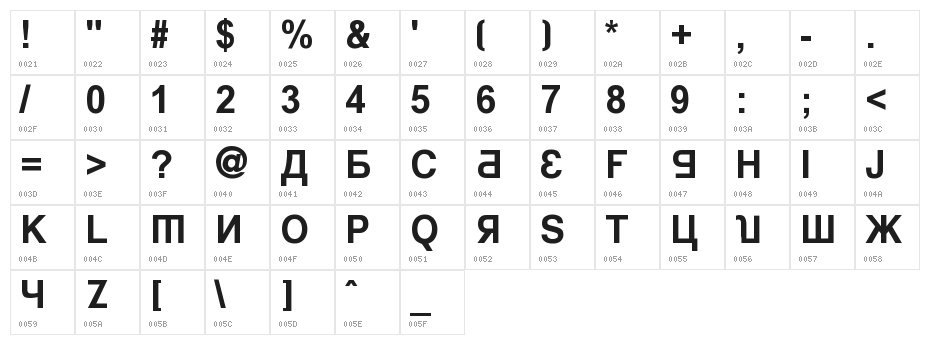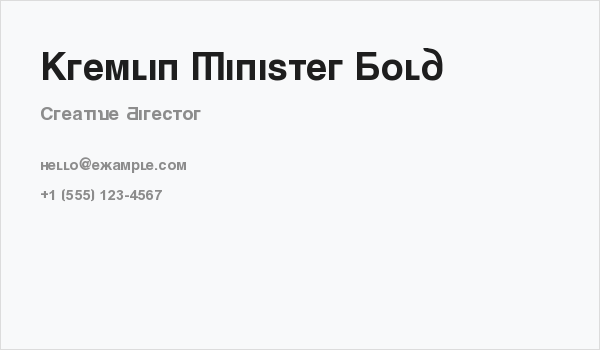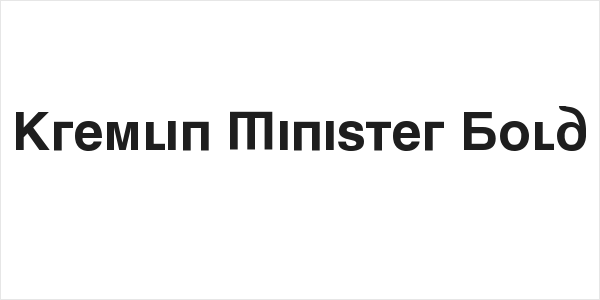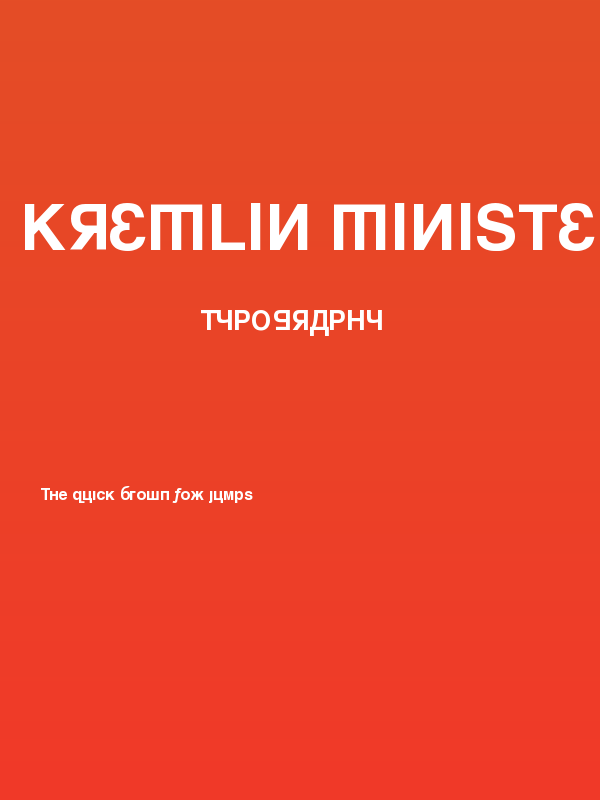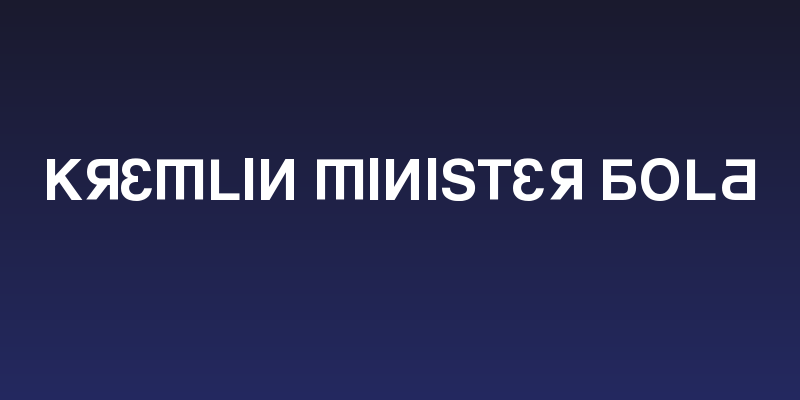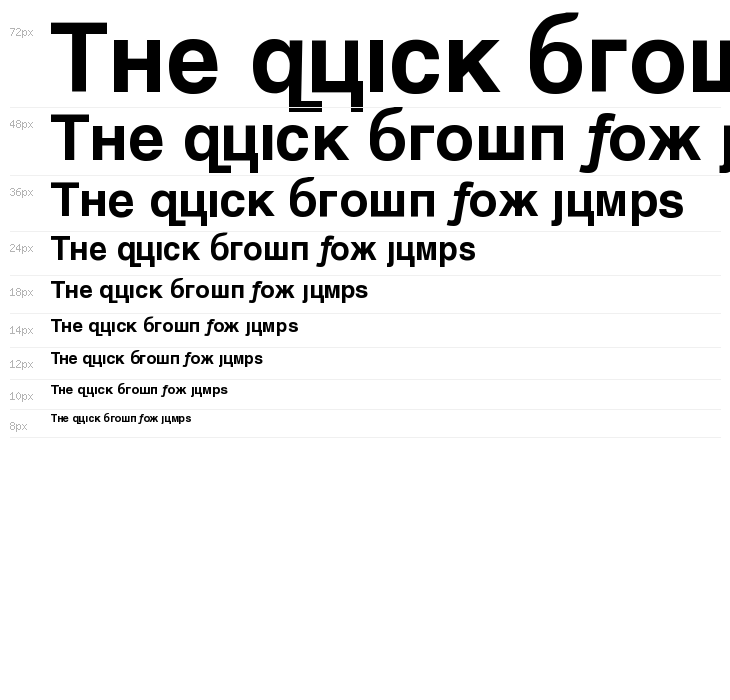
Kremlin Minister Bold Font
Kremlin Minister Bold Description
This font features a bold and assertive style with strong geometric shapes and a modern aesthetic. The characters are well-defined with a consistent stroke width, giving it a robust and impactful appearance. The uppercase and lowercase letters maintain a uniform height, contributing to a cohesive look. The numerals are clear and easy to read, while the special characters are distinct and complement the overall design. This font's boldness makes it suitable for attention-grabbing headlines and impactful statements.